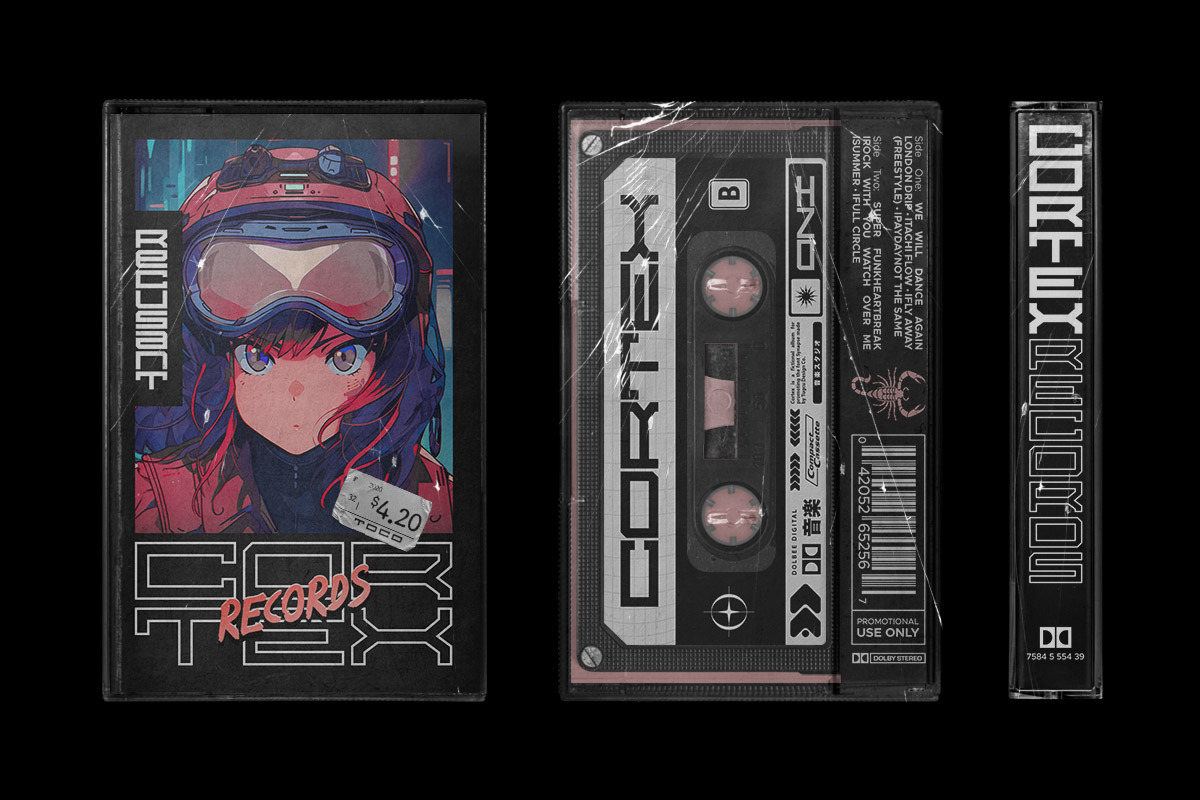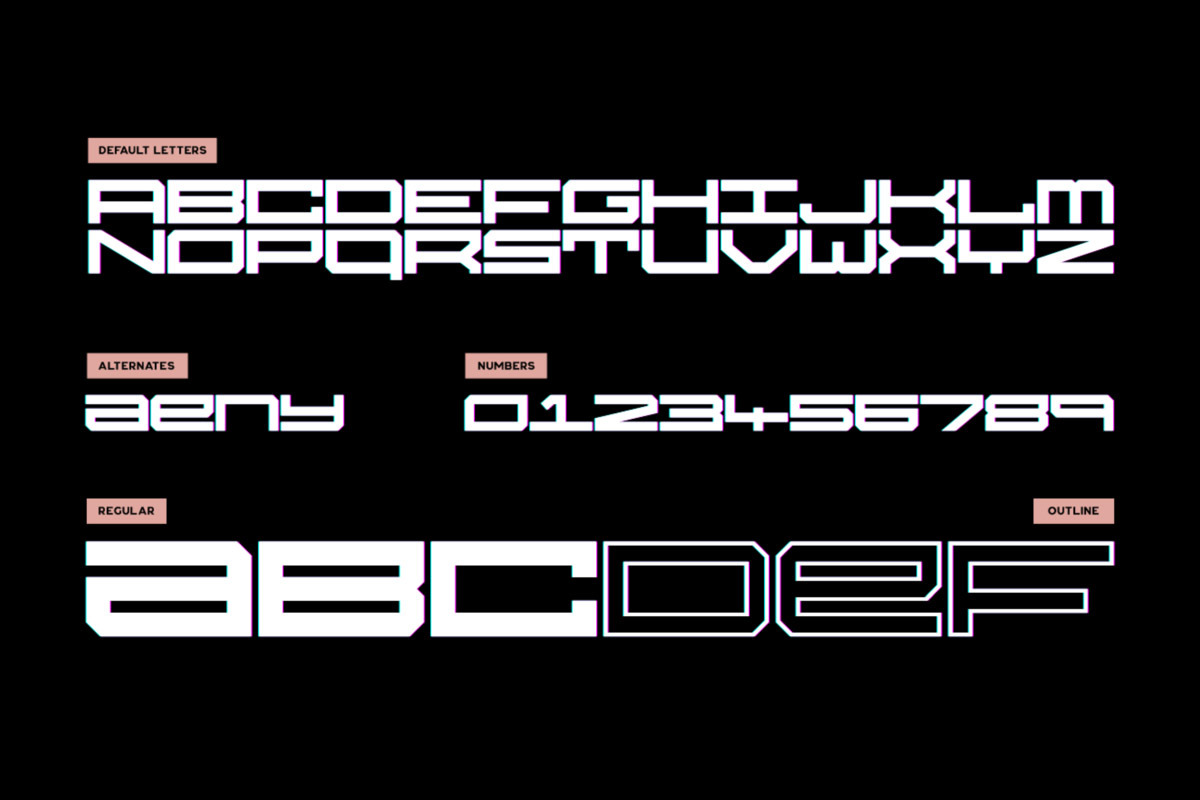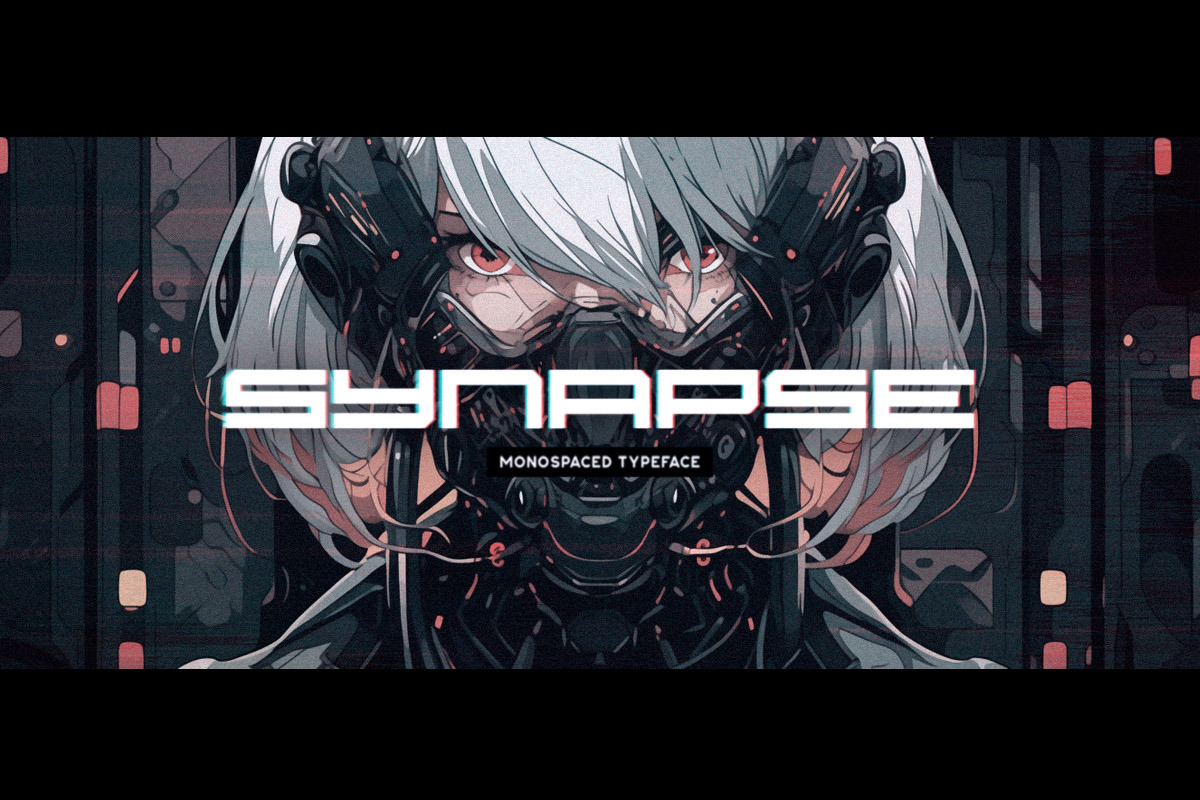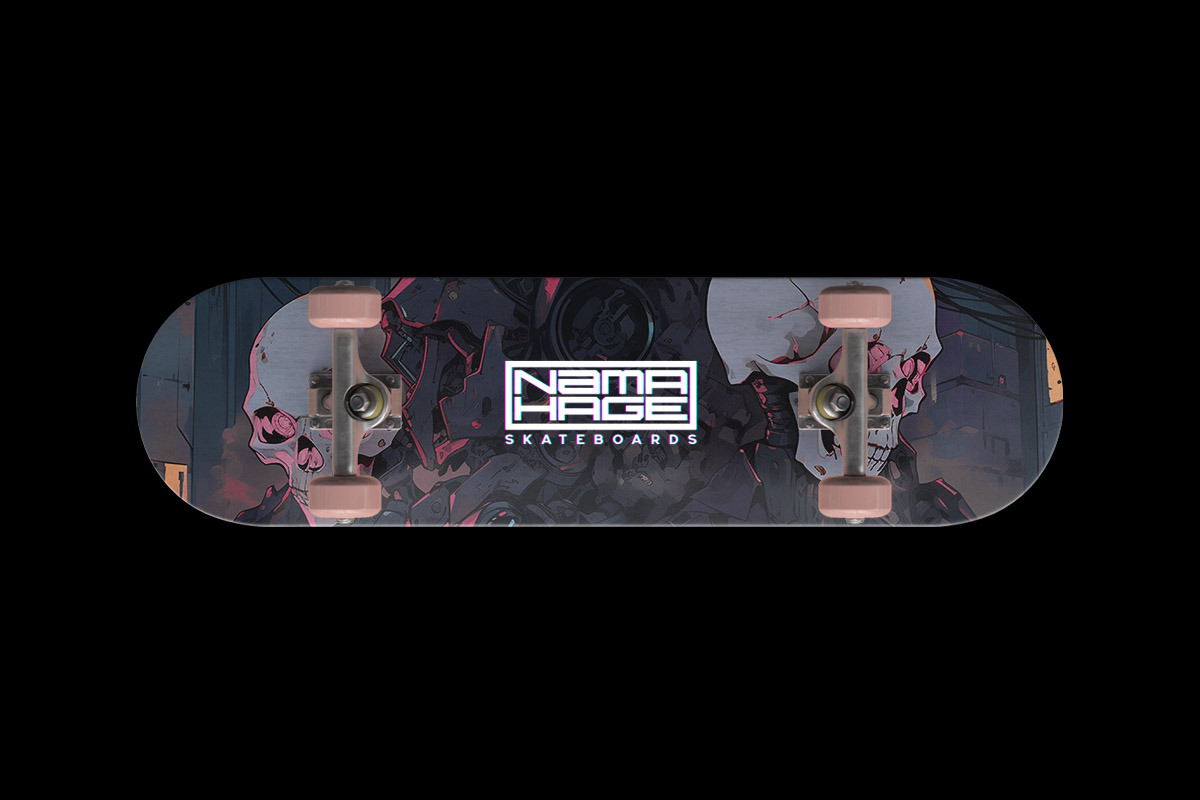
Synapse Typeface
Synapse is a wide monospaced display type that comes in two styles. It also includes a couple of alternate letters which can be toggled via Caps Lock.